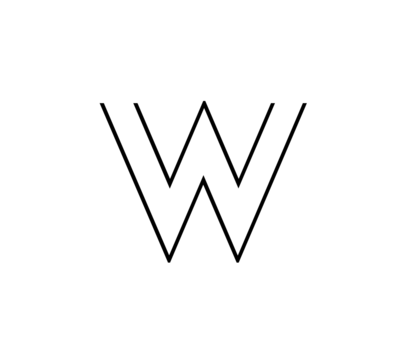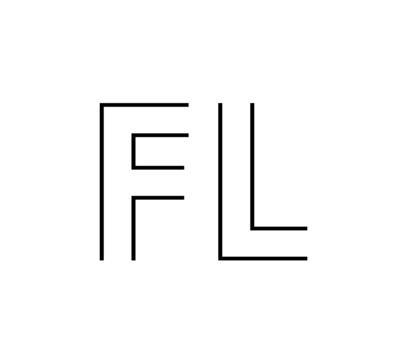
Baro is a family of seven sans serif fonts. Its style is geometric, and its letterforms are all-caps. Some the Baro fonts can be layered overtop of one another, for chromatic typesetting. The base style of the family is the Baro Plain font; all of its characters are comprised of thick, monolinear strokes. Baro Plain can be used on its own as a very heavy geometric sans, or it can be the placed as a base behind other Baro fonts (chromatic typesetting relatively simple to do in Adobe Creative Suite applications: just repeat the same text on multiple layers, use a different font on each layer, and make the text on each layer have a unique color). The characters in the Baro LineOne font are made up of very thin strokes. The letters don’t sit on a consistent, either, but rather bounce up and down along the line of text. In Baro LineTwo, each character is drawn with two parallel strokes – an outline and an inline, with a thick hollow counter space between them. Baro LineThree just is like Baro LinoTwo, but with thicker strokes. Baro LineFour is a stand-alone font; its characters each have thin inline strokes in the center of their ‘background’s’ thick monolinear strokes. Baro Contour is yet another font like Baro LineTwo, except that its parallel strokes are even thinner. Finally, Baro Strip is a prismatic version of Baro, which can either stand alone or combine with Baron Plain. In Baro Contour, the ‘strokes’ of each letterform are made up of five parallel lines.
| Family Name | Baro |
|---|---|
| Designer(s) | Julie Soudanne |
| Release Date | March 26, 2018 |
| Available Style | Contour, LineTwo, LineThree, LineFour, Strip, Plain, LineOne |
| Classification | Display, Sans |